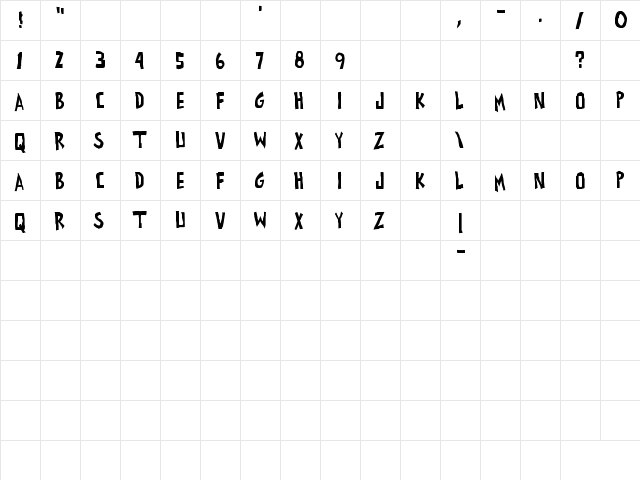
all exes must die! Regular
| Designer | Andeh Pinkard |
Design Context for all exes must die! Typeface
all exes must die! is a composed and adaptable typeface that performs quietly and consistently across a wide range of design contexts.